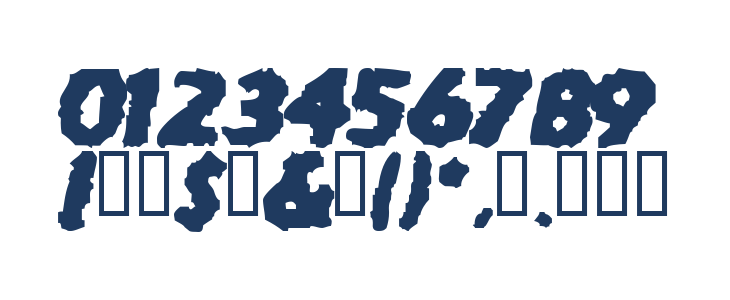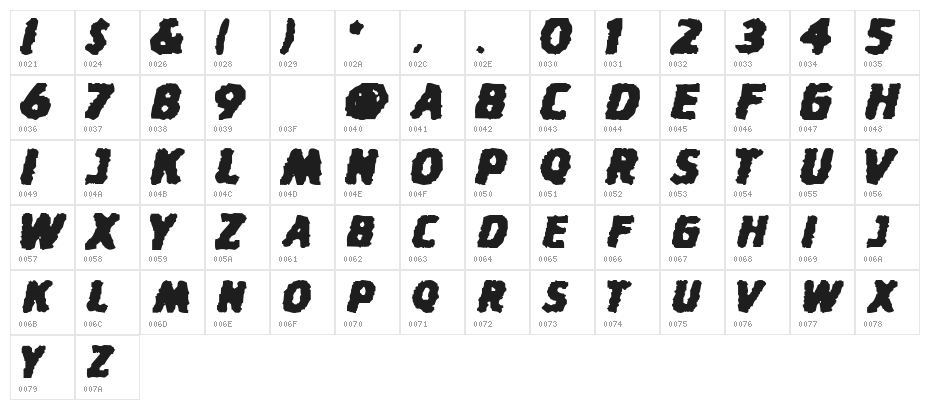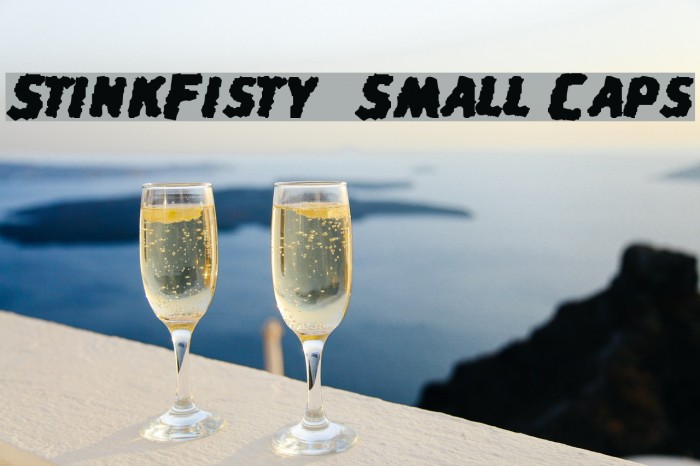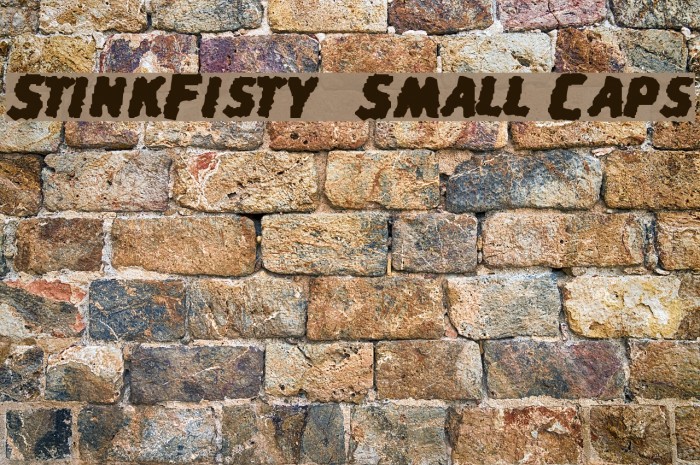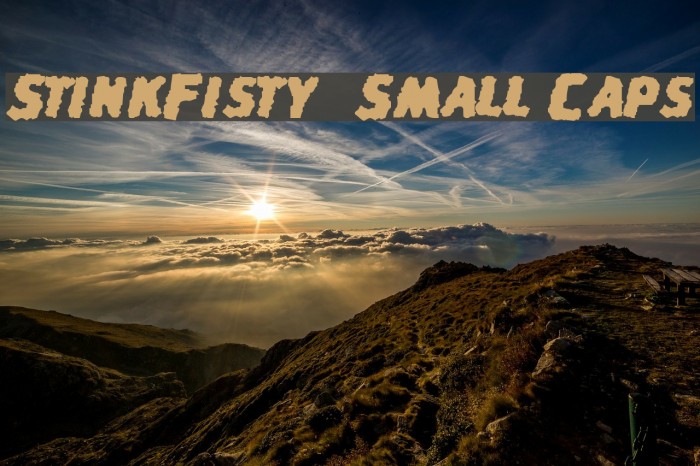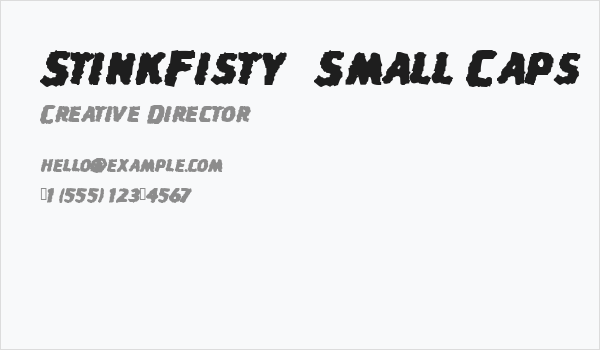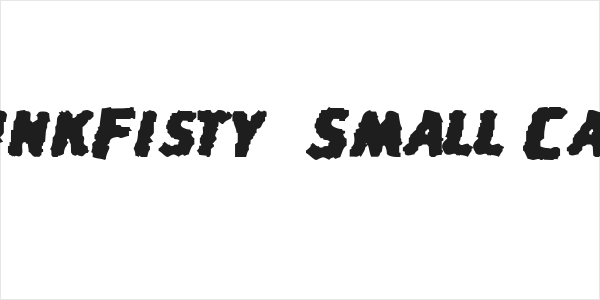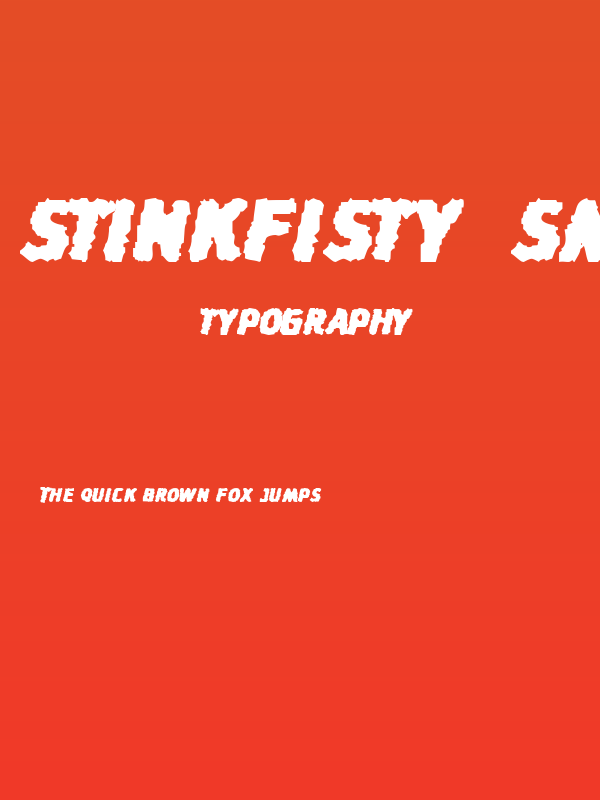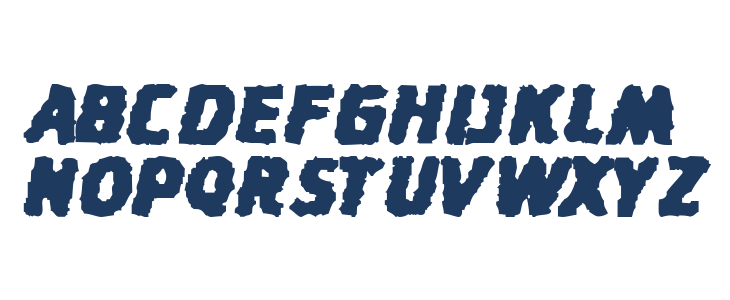
StinkFisty Small Caps Font
StinkFisty Small Caps Description
This font features a bold and rugged design, characterized by its jagged edges and uneven strokes. The letters have a distressed, almost grunge-like appearance, giving them a unique and edgy look. The uppercase and lowercase letters maintain a consistent style, with a heavy emphasis on boldness and texture. Numbers and special characters follow the same design principles, ensuring uniformity across all glyphs. This font is ideal for projects that require a strong, impactful visual presence.
| Proposed Projects | Perfect for album covers, posters, and branding that requires a bold, edgy aesthetic. |